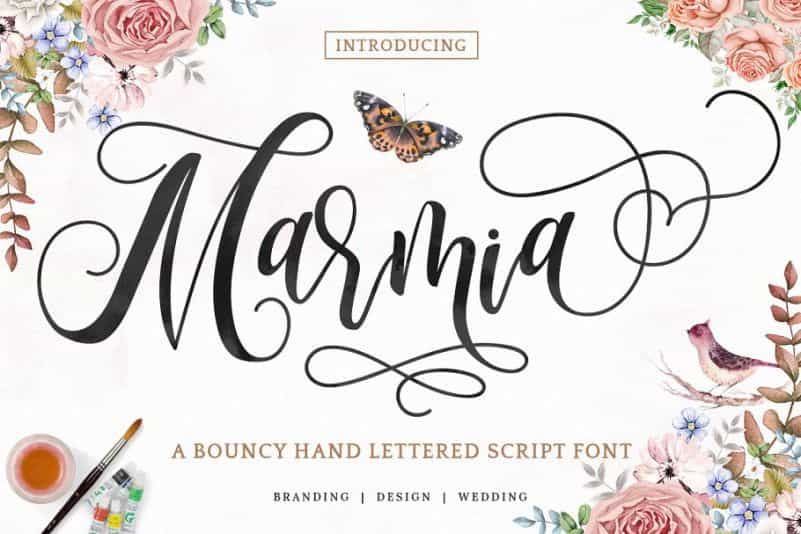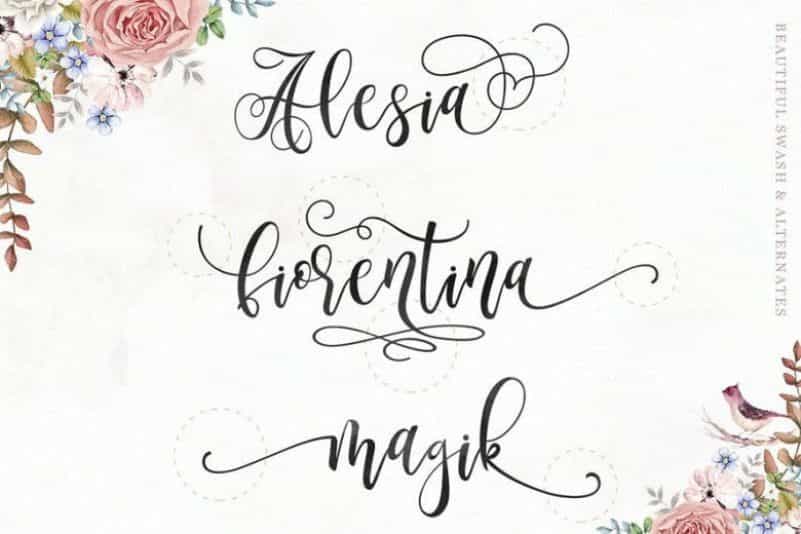
Introducing Marmia, font made by Kotak Kuning Studio. An elegant calligraphy font. Perfect for making elegant stylish statements – or adding a touch of class to your designs. This script has a multitude of natural looking ligatures and alternate characters in its OpenType features -making the font look as close to natural handwriting as possible.